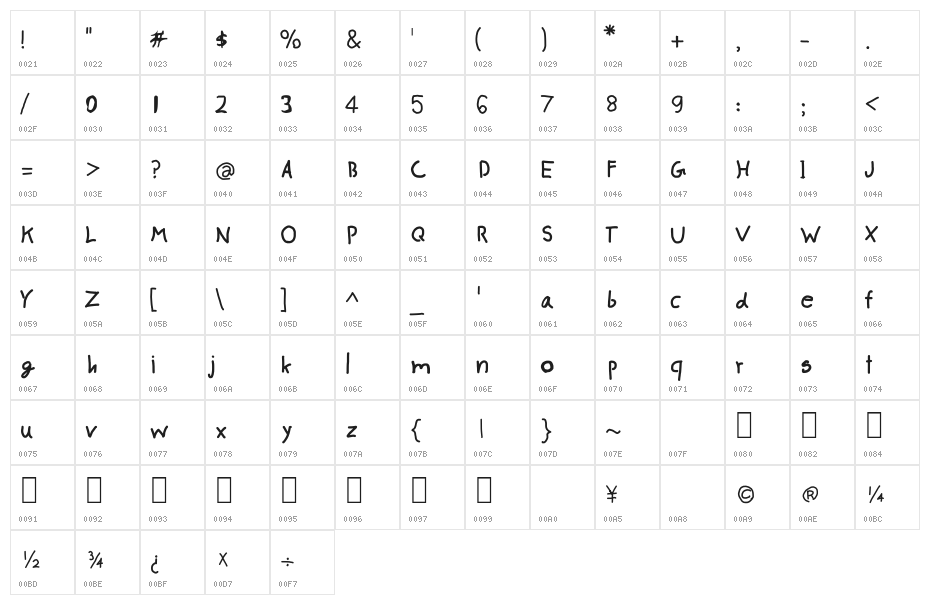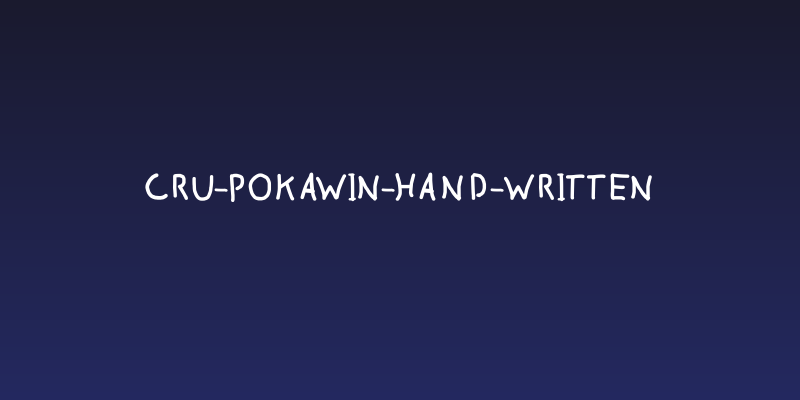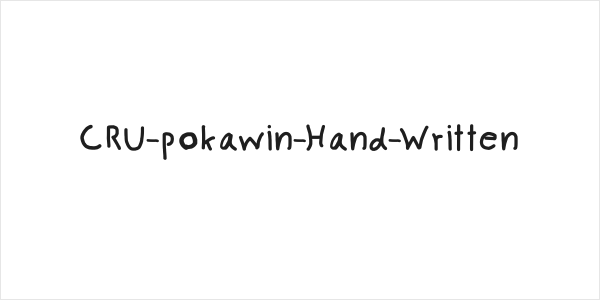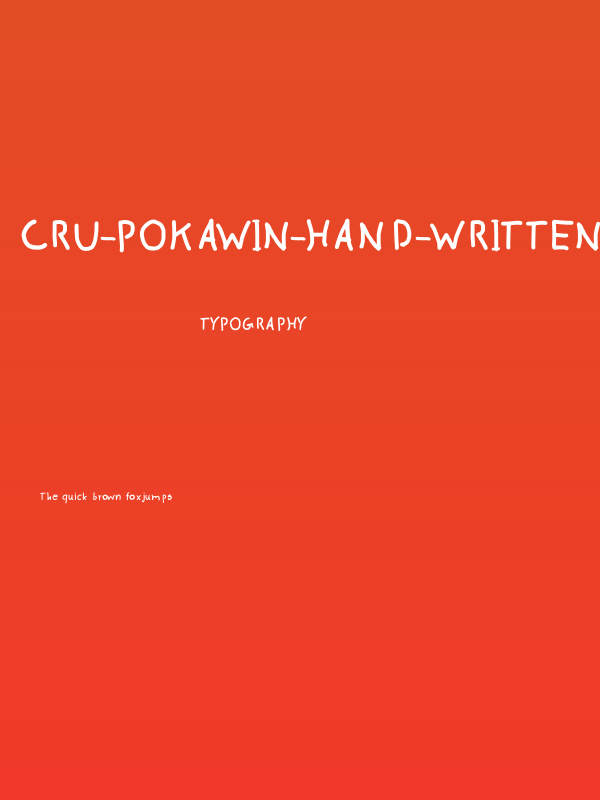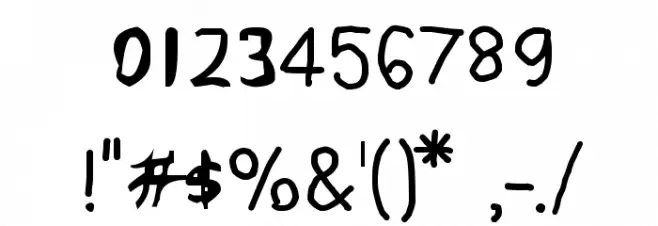
CRU-pokawin-Hand-Written Font
CRU-pokawin-Hand-Written Description
This font features a playful and casual handwritten style, characterized by its irregular and organic letterforms. The strokes are uneven, giving it a natural and personal touch, reminiscent of a quick note or a personal letter. The uppercase and lowercase letters maintain a consistent style, with rounded edges and a slightly tilted appearance, adding to its informal charm. The numerals and special characters follow the same handwritten aesthetic, ensuring a cohesive look across all characters. This font exudes a friendly and approachable vibe, making it suitable for projects that require a personal or informal touch.
| Overall Style | Casual, Playful |
| Use Case | Headlines, Informal text, Creative projects |
| Proposed Projects | Ideal for greeting cards, personal notes, informal invitations, and creative projects that require a friendly and approachable style. |